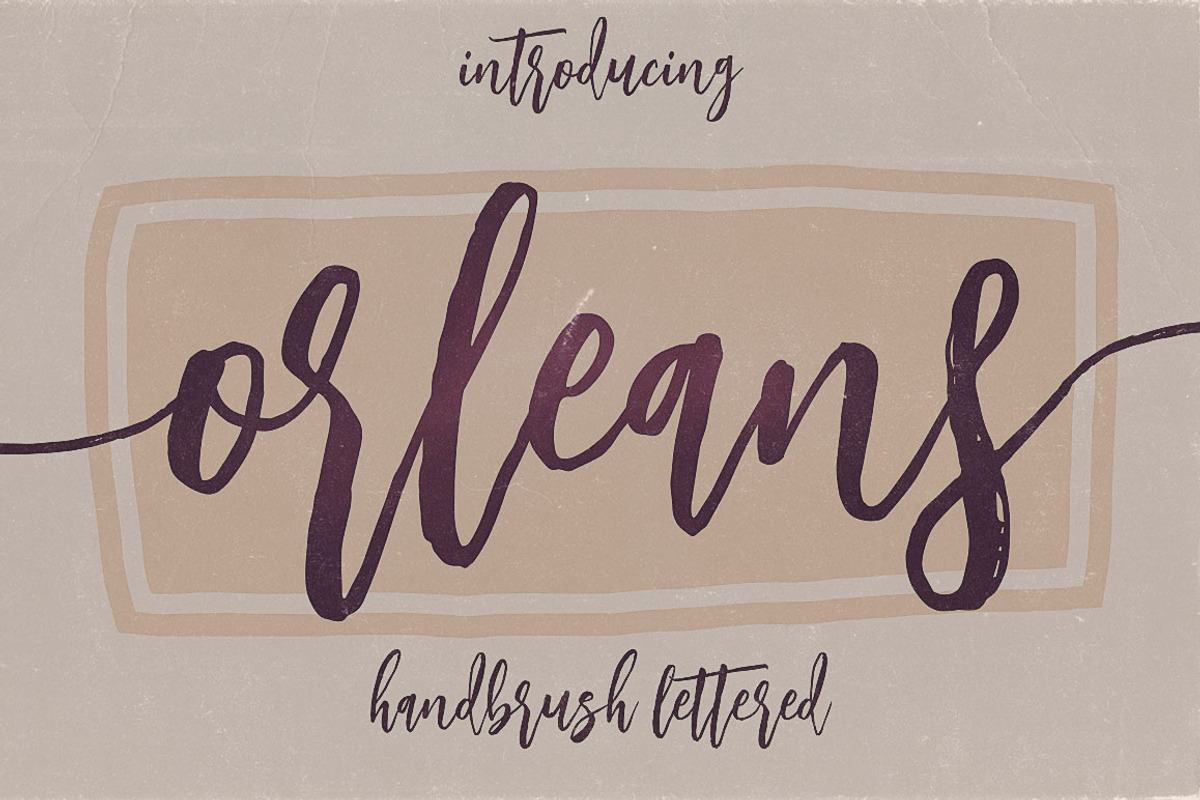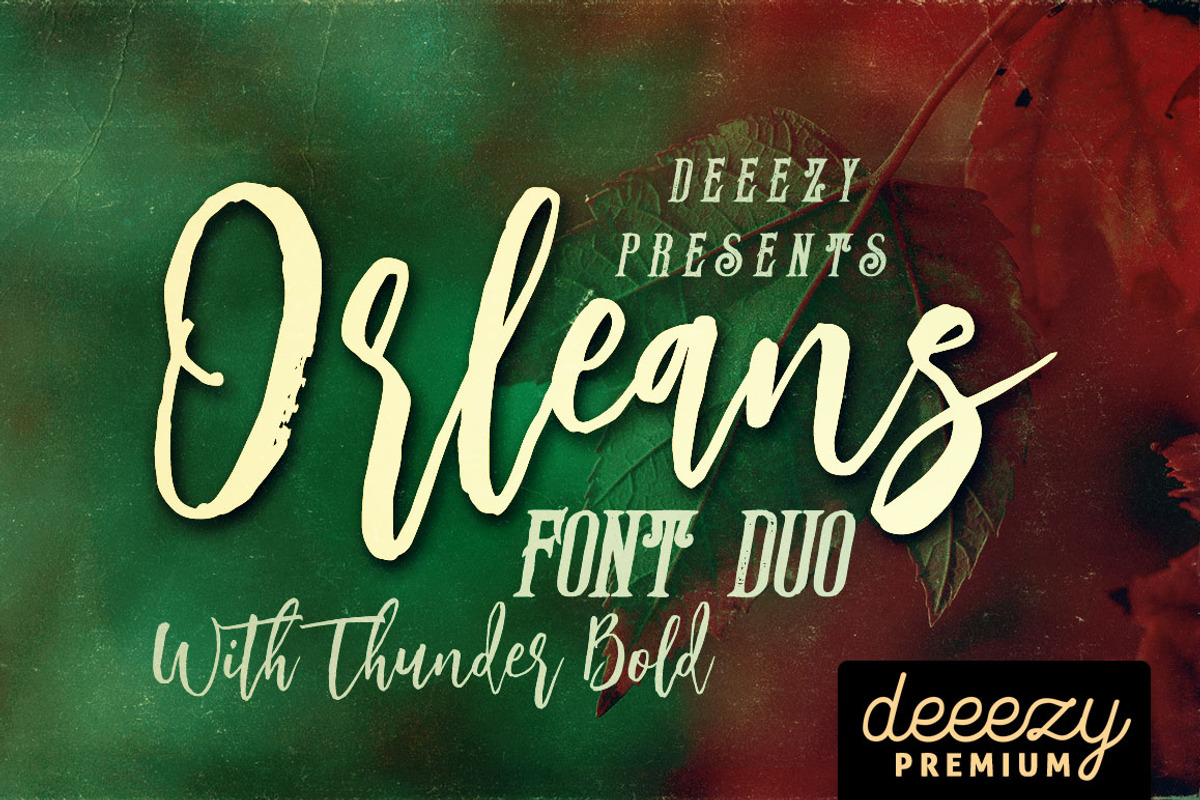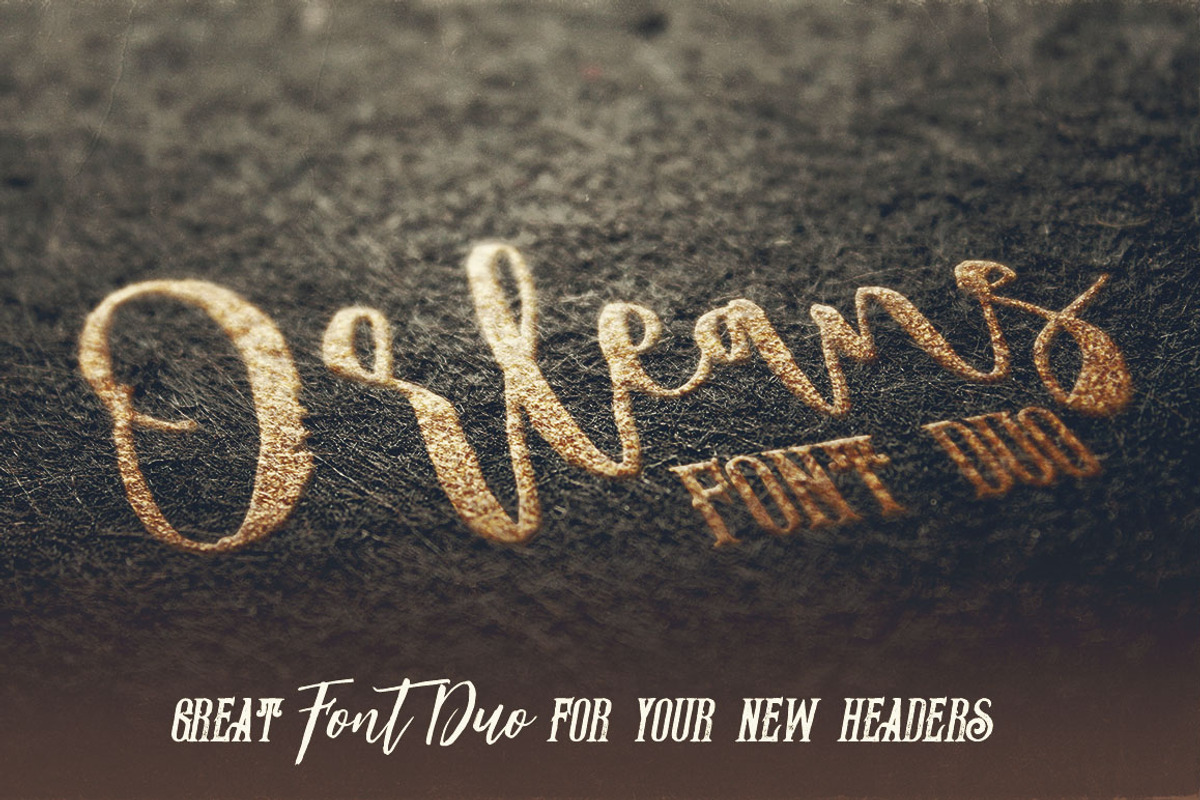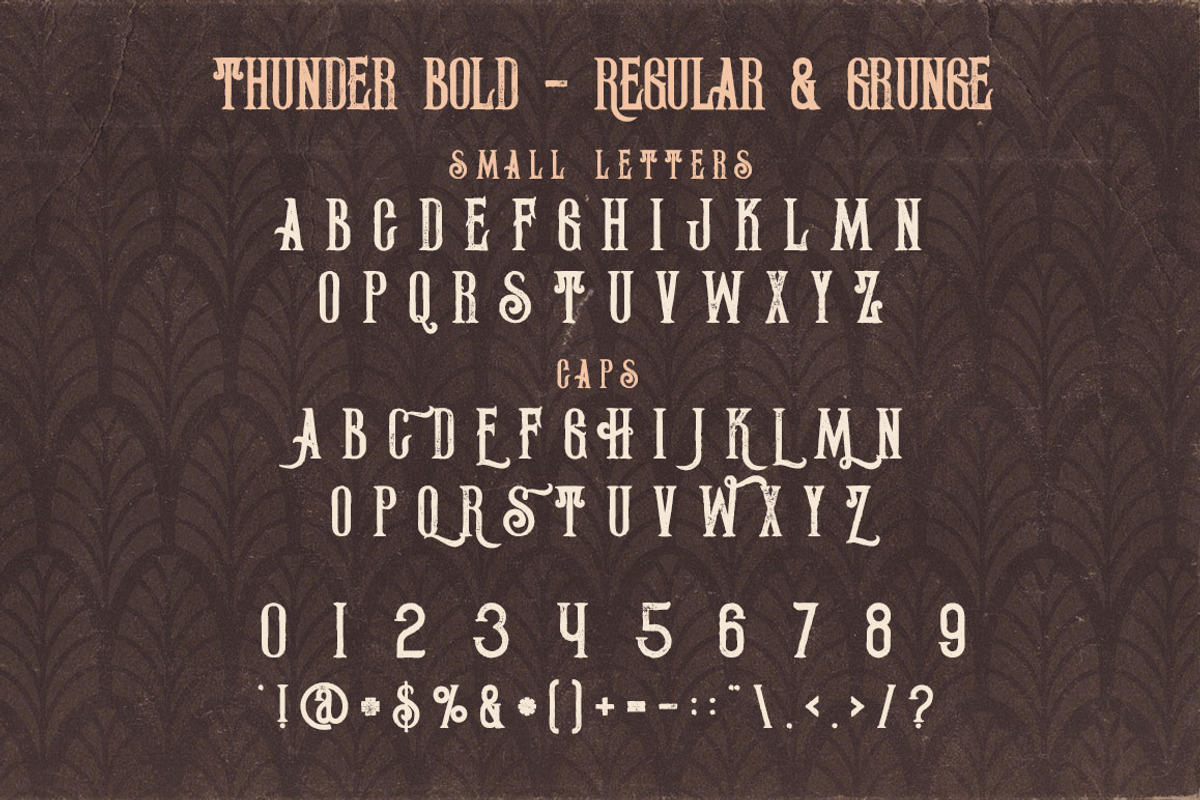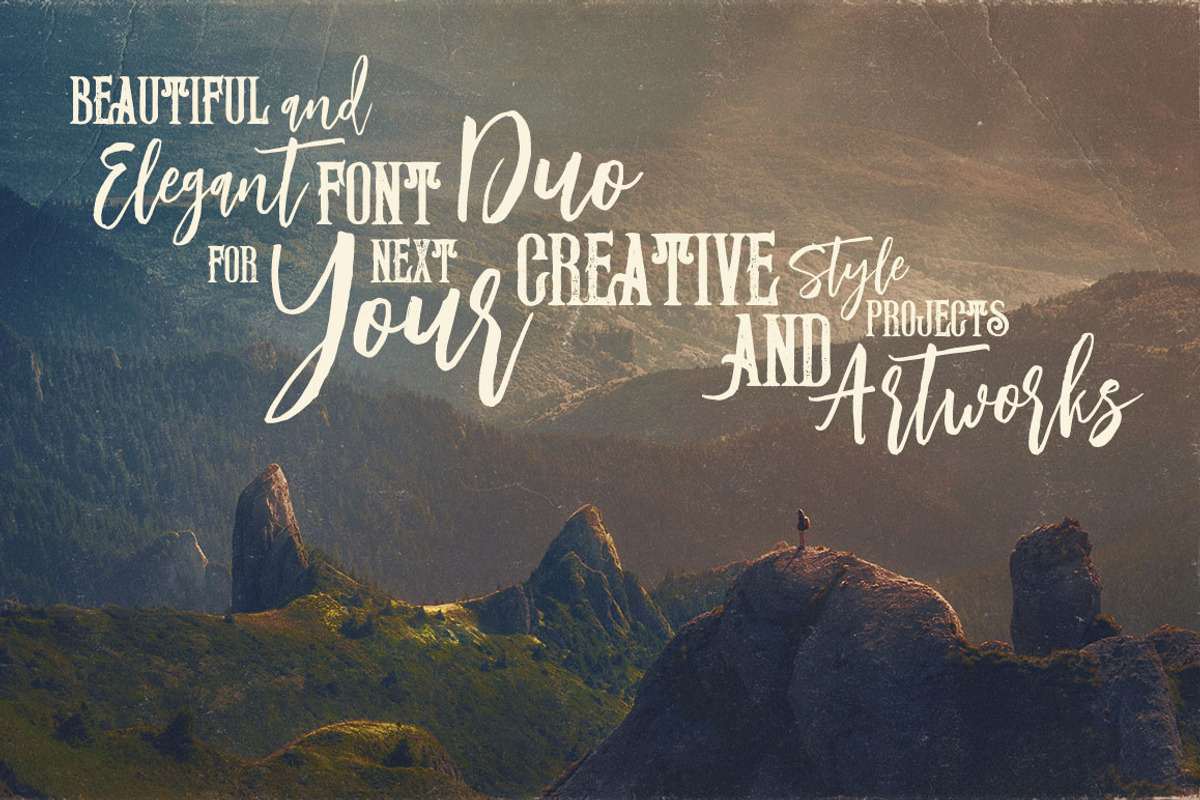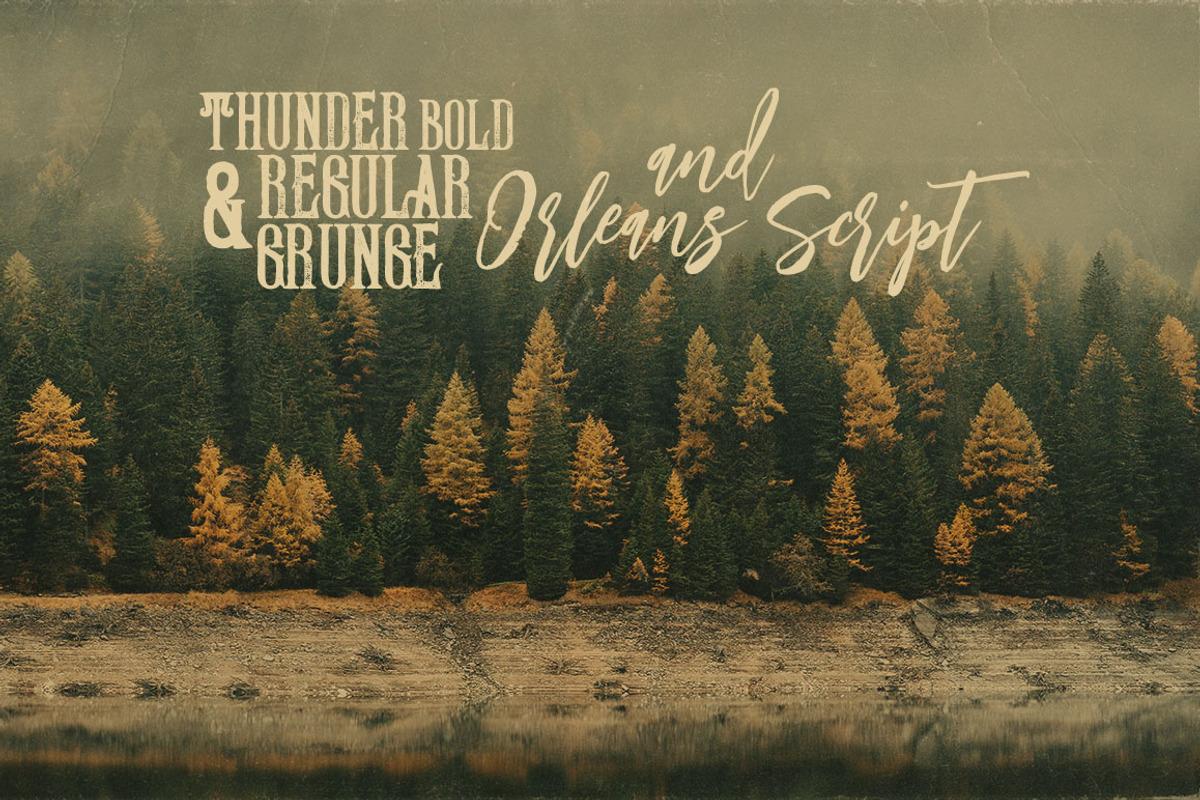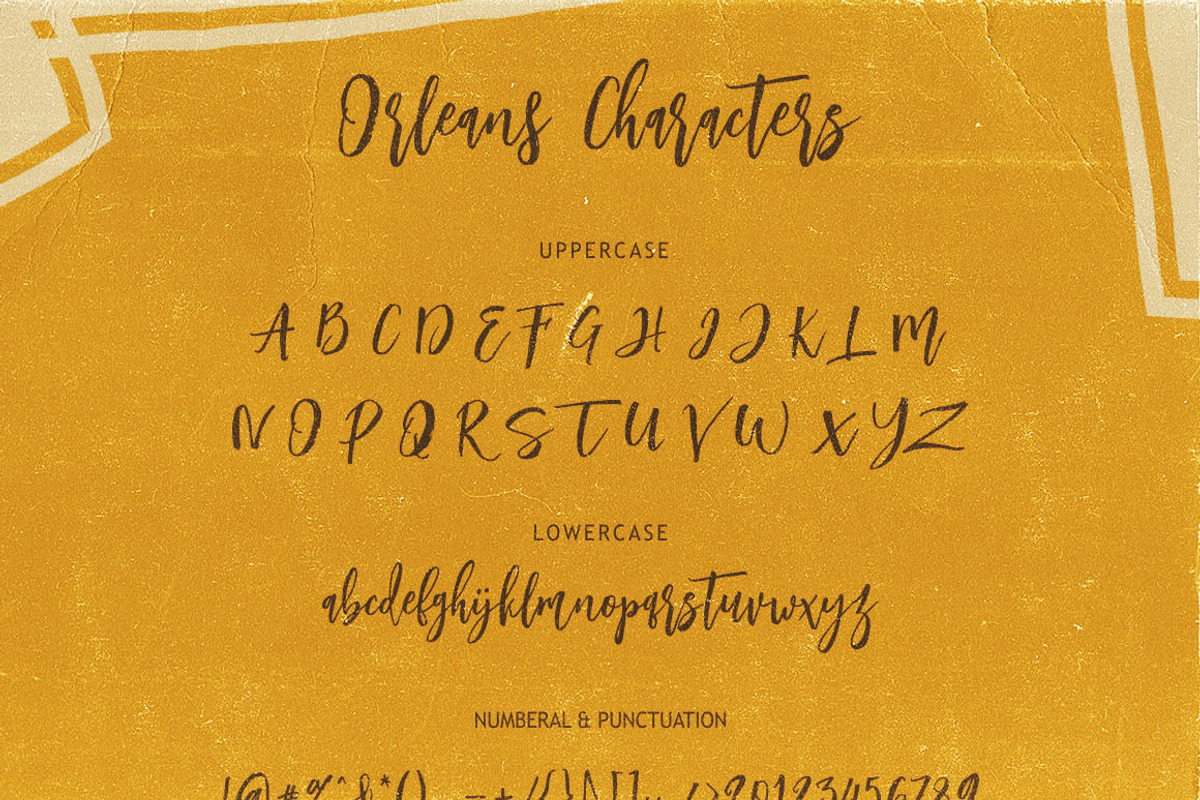
Orleans Script Font Duo
Cool and creative style font duo for your new projects. First font is handdrawn & modern brush style script font with multi language support and lot of stylistic alternates. Second font is condensed serif display font with regular & grunge version (without multi language support).
- First font is handdrawn & modern brush style script font with multi language support and lot of stylistic alternates.
Why Orleans Script Font Duo is worth a look
Orleans Script Font Duo by Deeezy fits naturally into Branding, posters, packaging, typography.